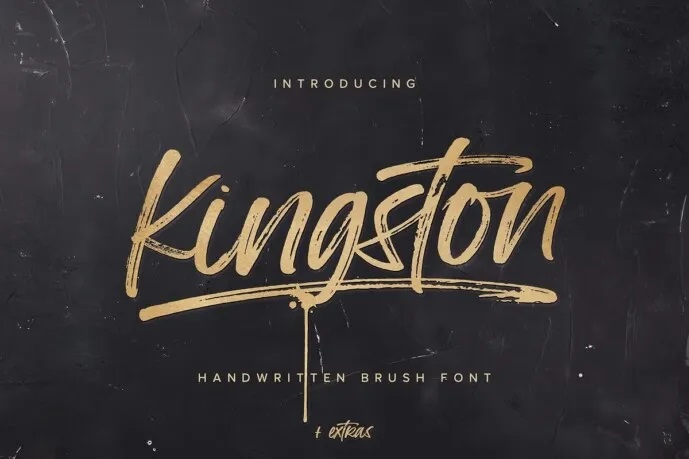
Kingston Font
Kingston is a hand-drawn font with detailed dry brush texture, a perfect summer choice. The versatile character alternative set gives it an Quality original look that can fit into any number of projects. In addition, Kingston also includes a set of 52 hand-drawn elements which add a nice touch to your Kingston text. It easily works well in the fields of business branding or even fashion apparel, stationery product packaging…
Kingston Brush Script Font